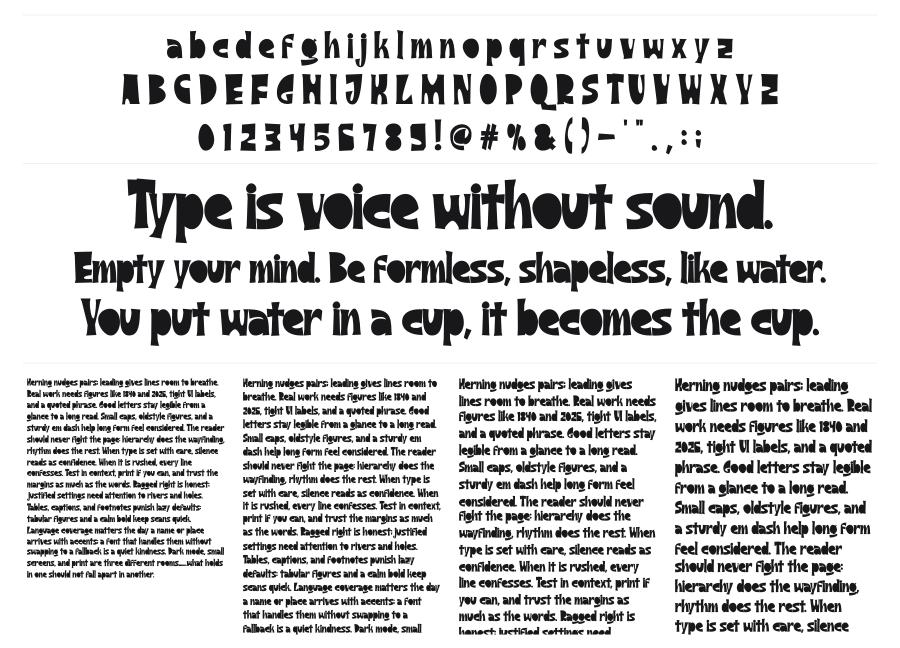
Kittenish
Kittenish is a heavy groovy display font with exaggerated organic curves and dramatically variable letter widths. Each character feels hand-carved and bouncy, with large circular counters and thick stems that taper into thin connectors. It channels the spirit of 1970s pop lettering with a contemporary looseness.